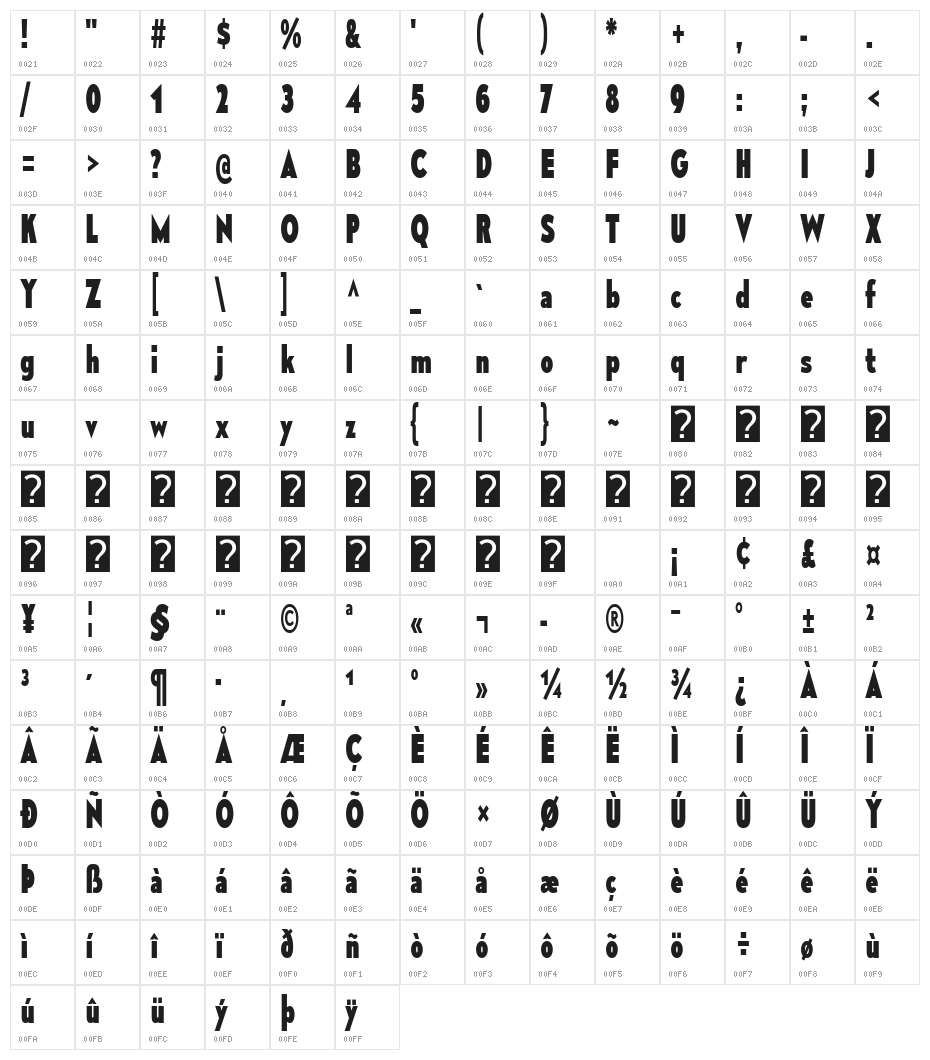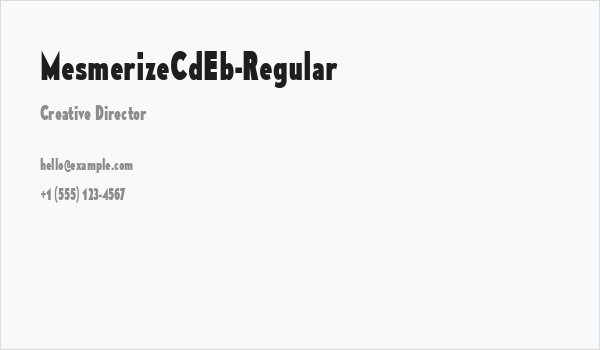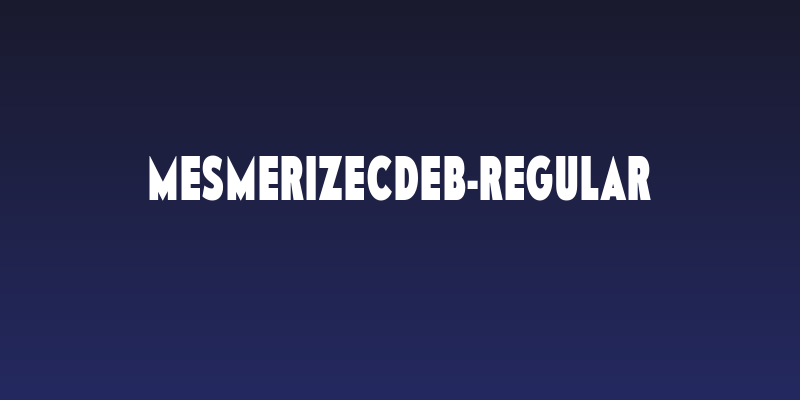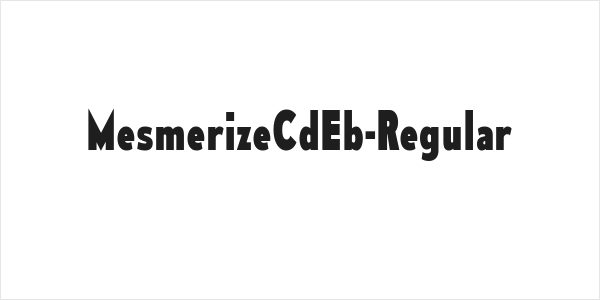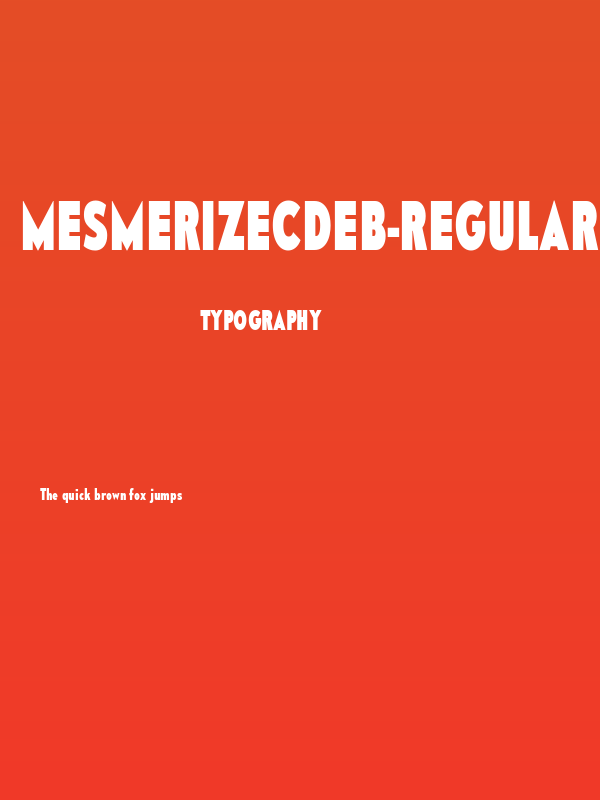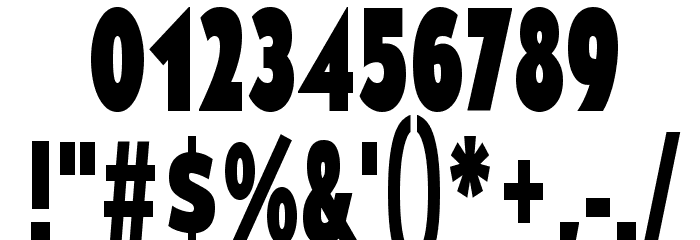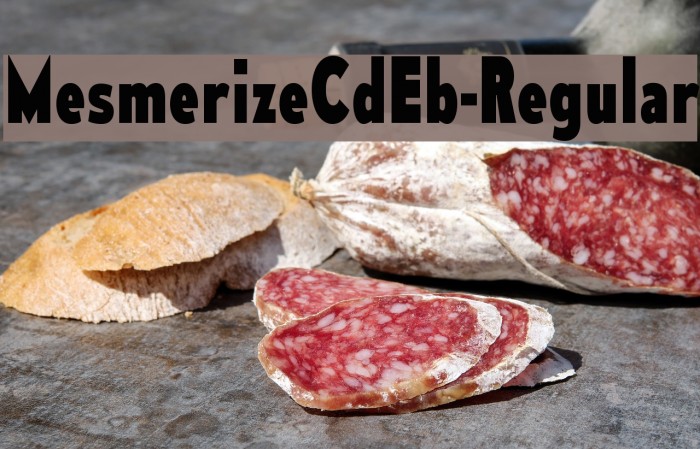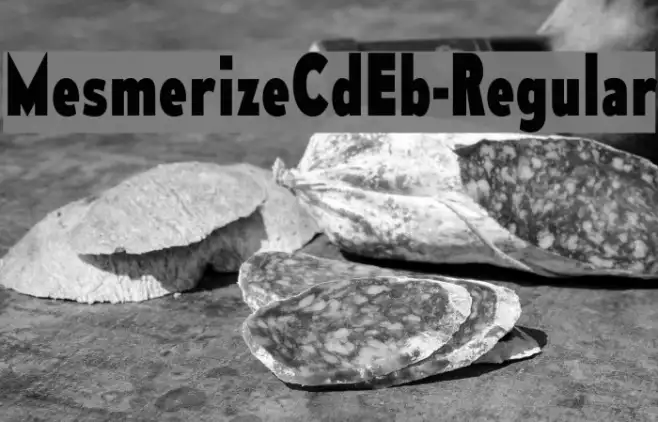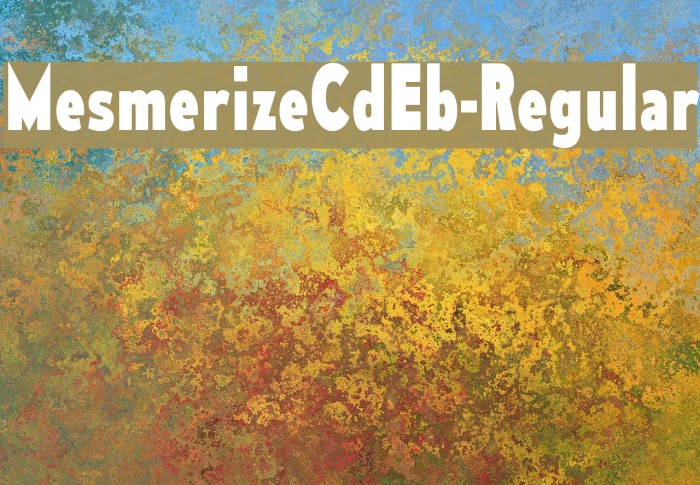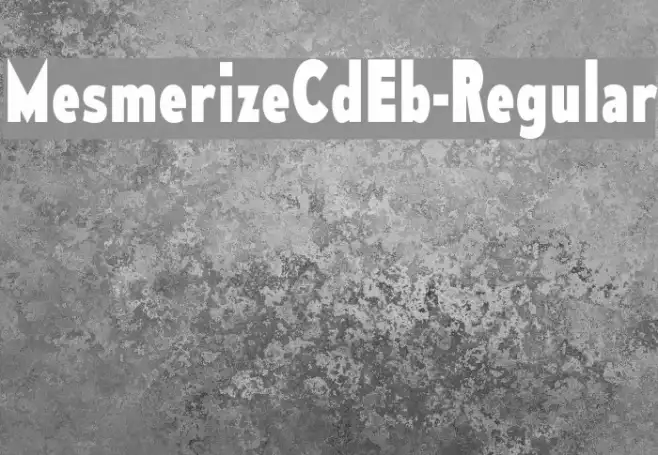
MesmerizeCdEb-Regular Font
MesmerizeCdEb-Regular Description
This font features bold, geometric letterforms with a strong presence, making it ideal for attention-grabbing designs. The uppercase letters are particularly striking, with a uniform height and width that convey a sense of stability and strength. The lowercase letters maintain the boldness of the uppercase, with rounded edges that add a touch of softness to the overall look. The numerals are equally bold, ensuring consistency across all characters. Special characters are included, maintaining the same bold style, making this font versatile for various design needs.
| Proposed Projects | Ideal for posters, headlines, branding, and any design requiring a bold statement. |